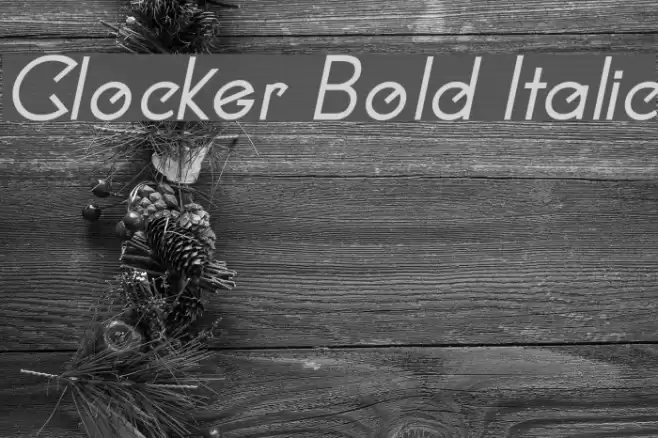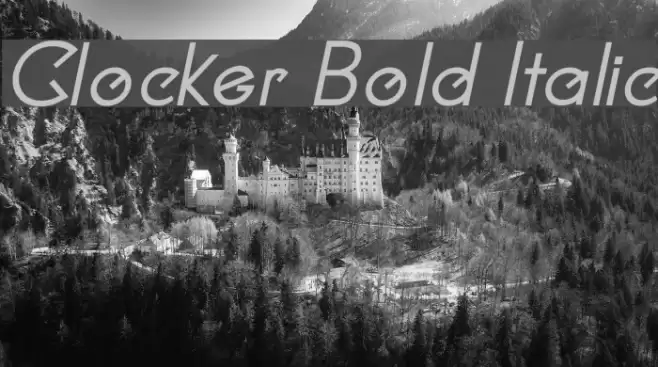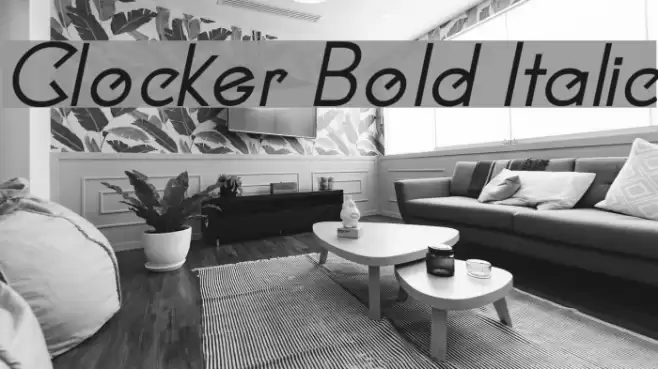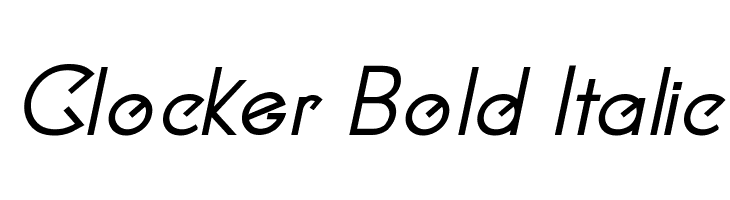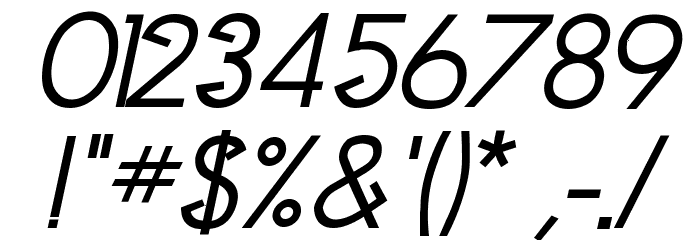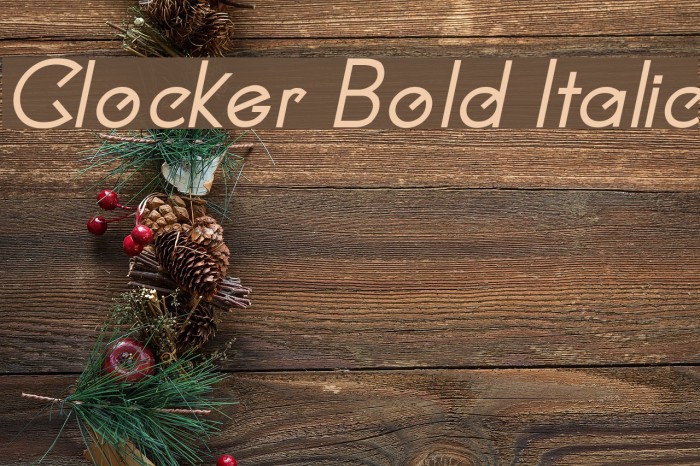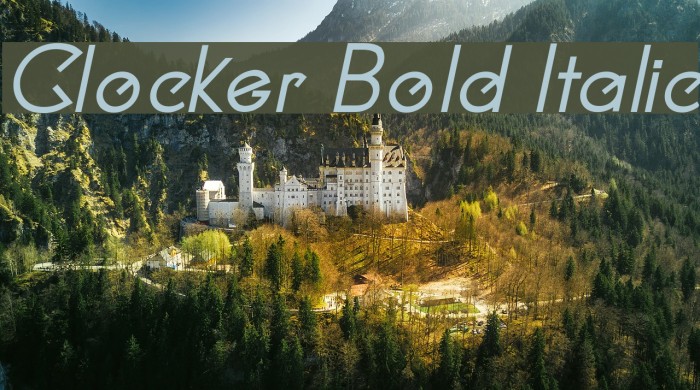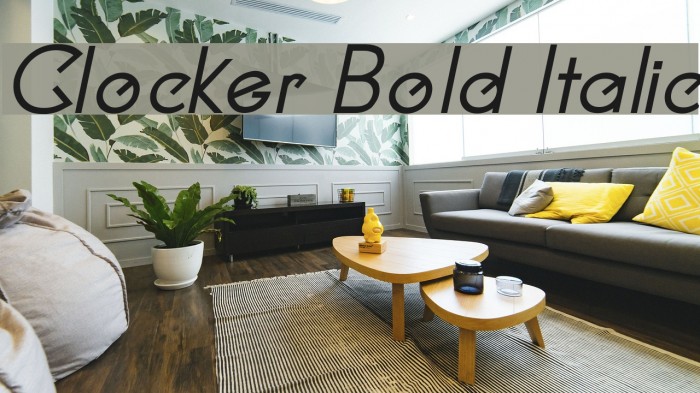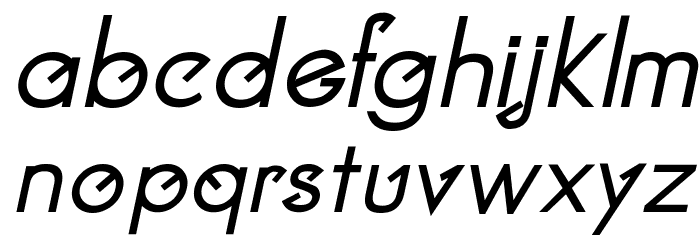
Clocker Bold Italic Font
Clocker Bold Italic Description
This font exhibits a dynamic and modern style with a distinct italic slant, giving it a sense of motion and energy. The bold weight enhances its presence, making it suitable for impactful designs. The characters are crafted with a geometric precision, featuring clean lines and sharp angles. The uppercase and lowercase letters maintain a consistent style, while the numerals and special characters integrate seamlessly. The overall appearance is sleek and contemporary, ideal for projects that require a bold statement.
A bold, italic, and modern font with geometric precision from Uncategorized fonts.
- Proposed Projects: Ideal for branding, advertising, posters, and headlines that require a modern and bold aesthetic.